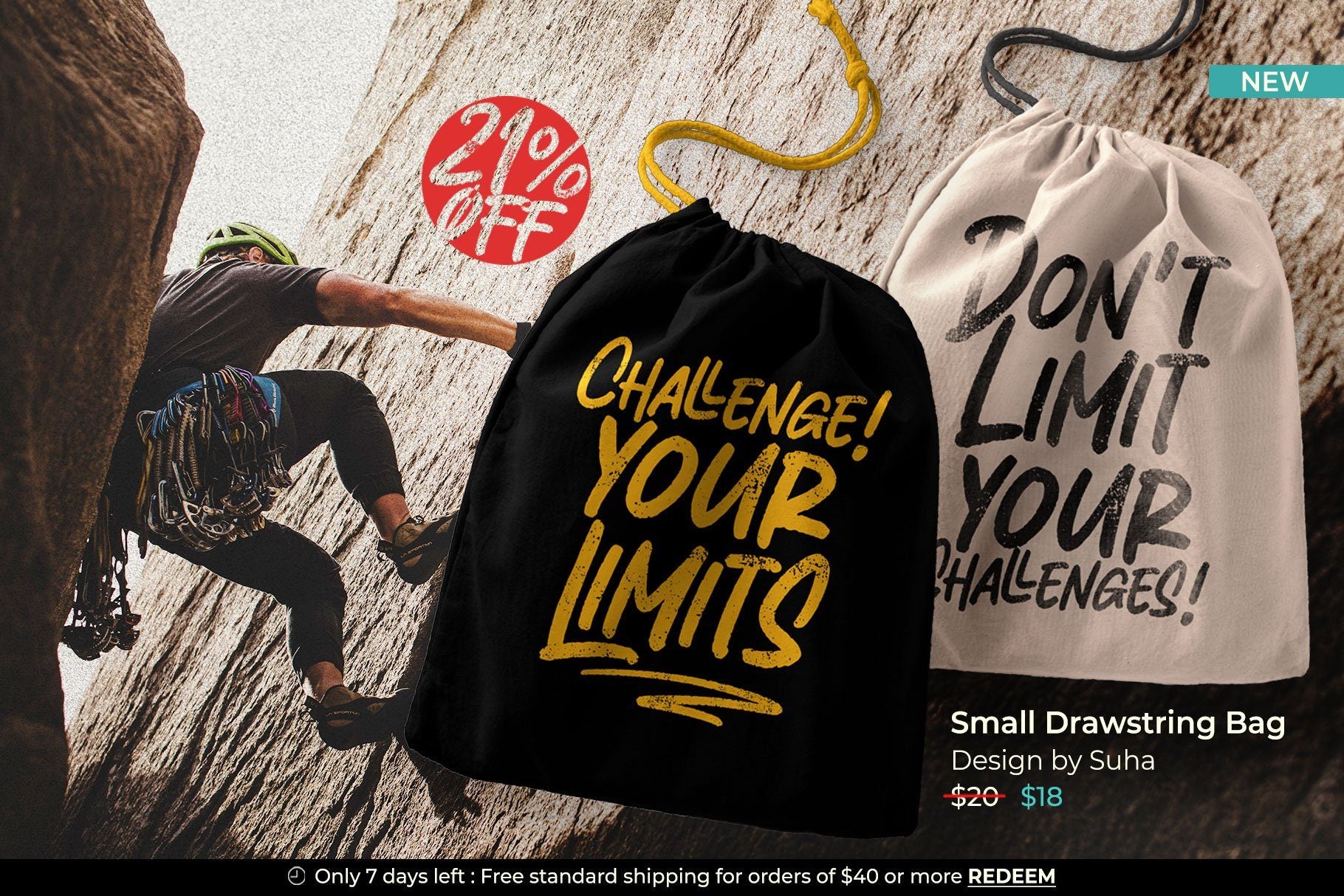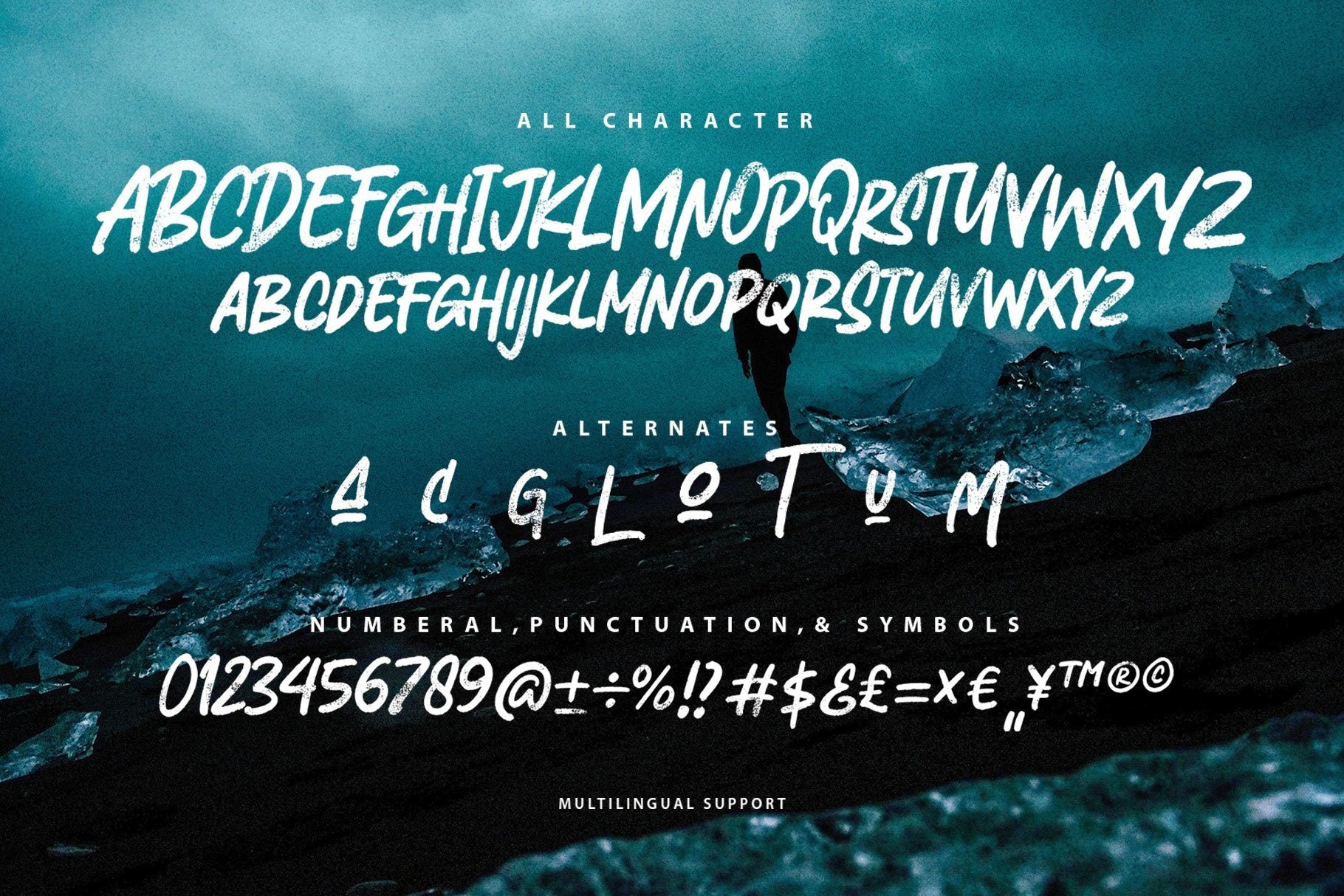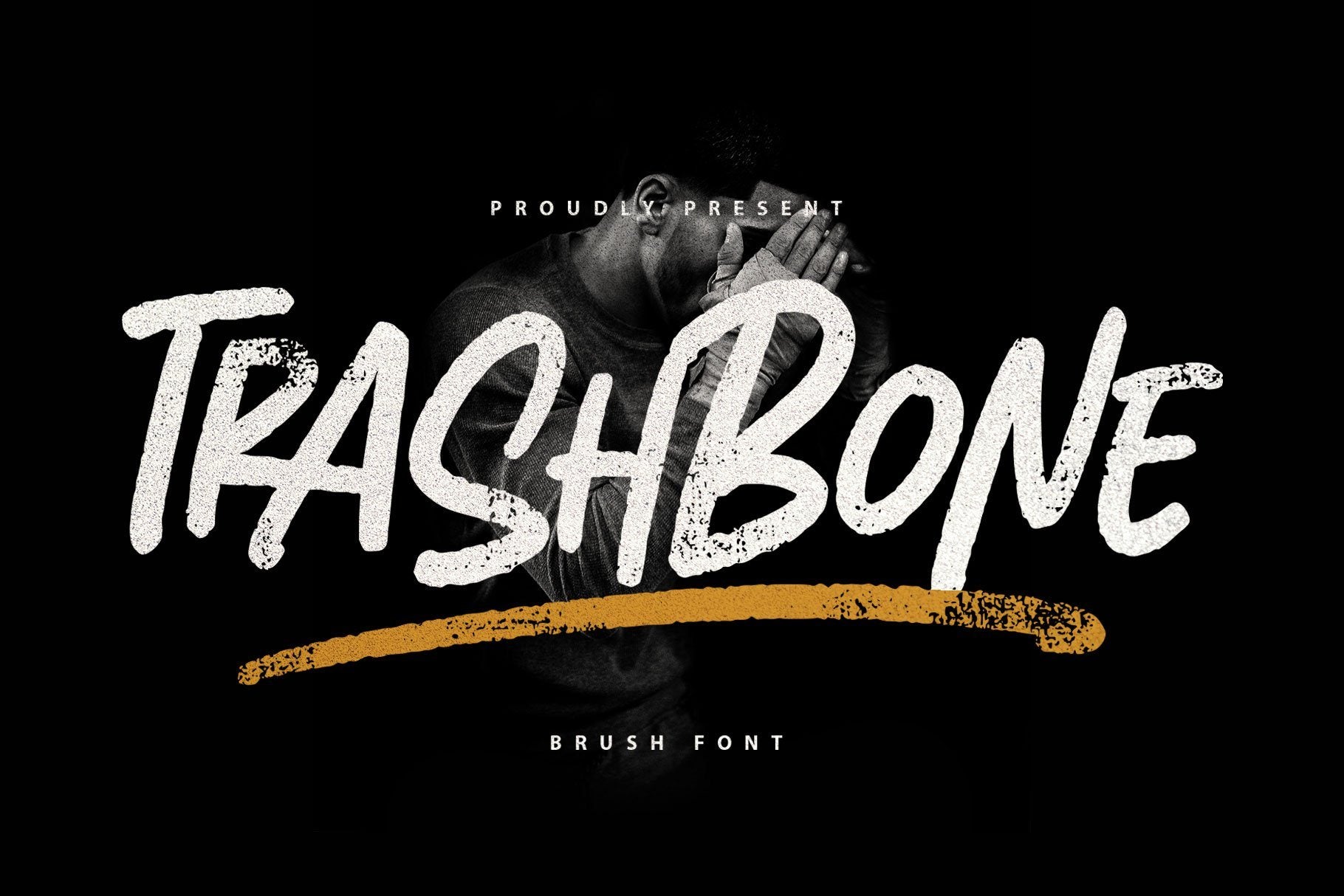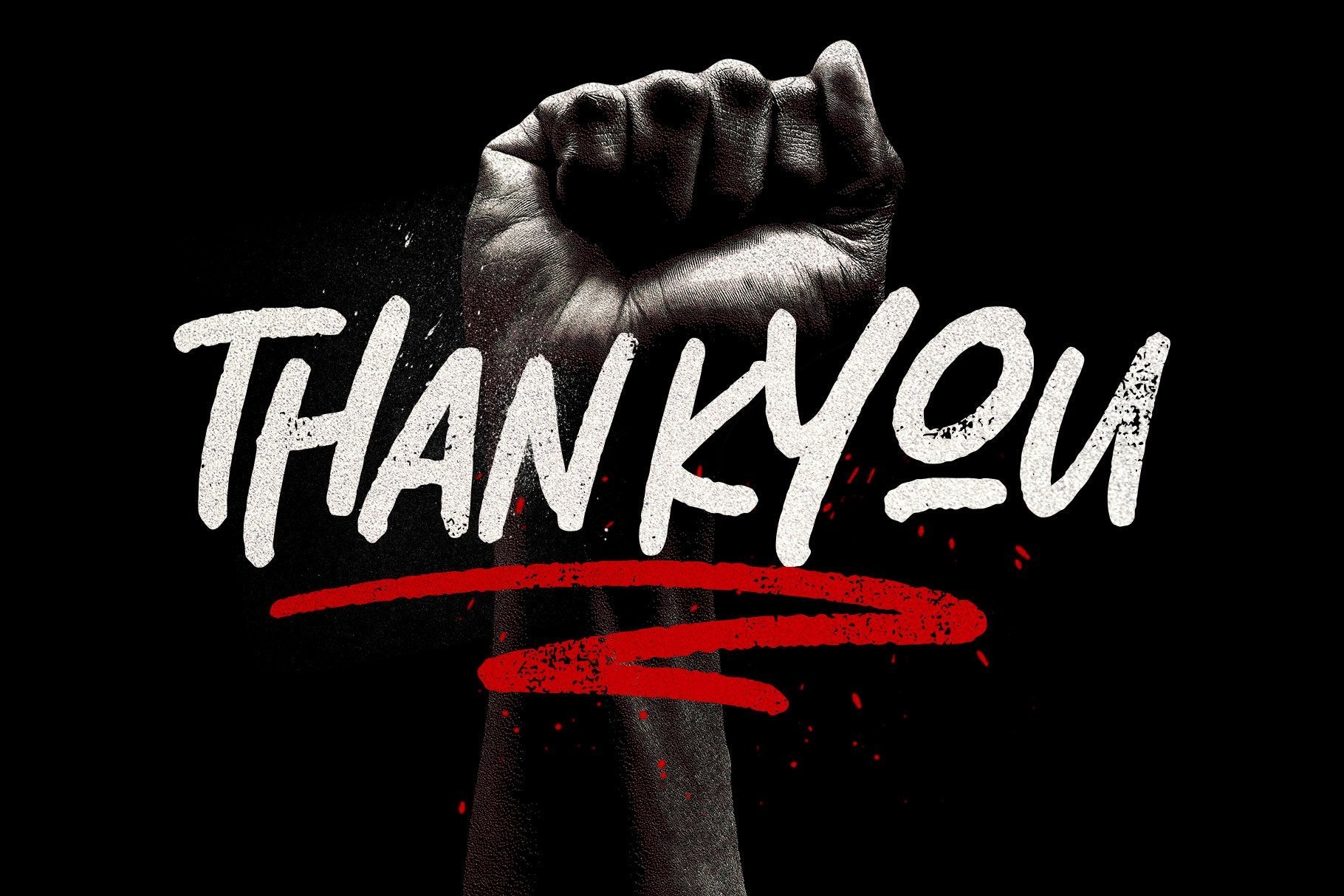
About Trashbone
Introducing Trashbone , a playful marker font, designed with an additional rusty effect applied to the strokes. This font represented courage, youth, spirit, freedom, that recommended for many themes such as sports, dark, teen, movement, adventure, etc. Equipped with ligatures, alternates, and multilingual support! Thank you for visiting and enjoy!